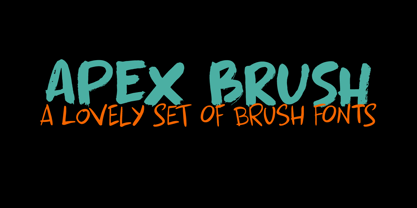
Apex Brush
by Hanoded
About Apex Brush Font Family
I like playing around with brushes and Chinese ink. I always have some kind of idea of what the final design should look like, but once it’s done, it never ever looks like what I had in mind. Apex Brush is one of those designs: it started off as a few brush strokes, but before I knew it, I had a really nice set of matching brush fonts! Use it for any design that needs a bit of rough, a splash of ink and a pinch of rebel.
Designers: David Kerkhoff
Publisher: Hanoded
Foundry: Hanoded
Design Owner: Hanoded